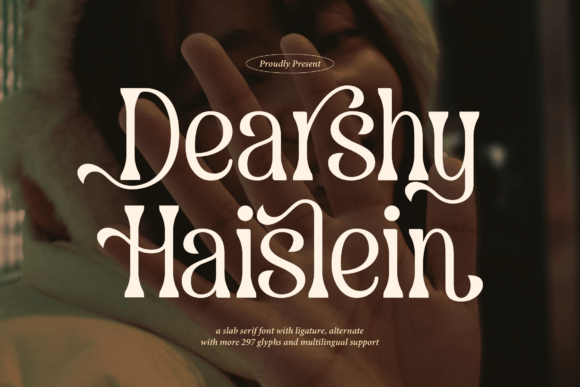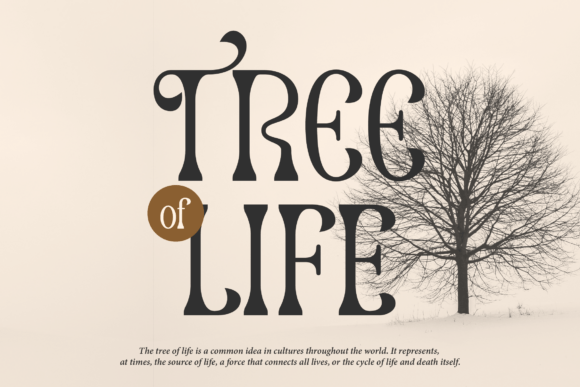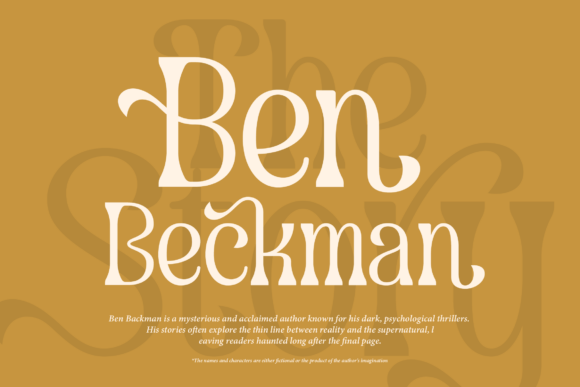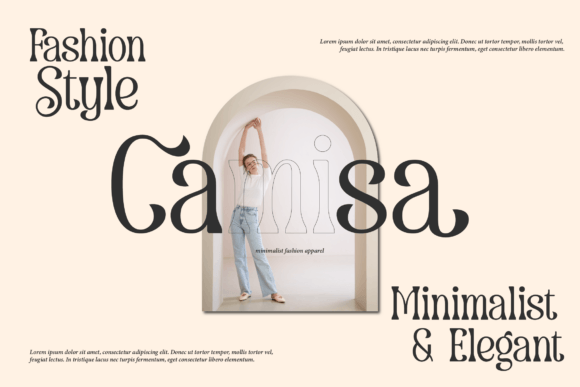
Dearshy Haislein Font
About the Dearshy Haislein Font
The Dearshy Haislein Font is here to transform your projects with its distinctive character and style. Dearshy Haislein is a stylish Slab Serif font with bold, thick letters and strong edges. Its classic design gives a confident and elegant look, making it great for headlines, logos, or any project that needs a bold yet refined touch.
Its strong verticality and bold strokes make Dearshy Haislein ideal for headlines, short impactful statements, and logos requiring a commanding presence. It also works well in branding applications where a sophisticated, yet assertive, feel is desired, such as for luxury goods or high-end services. Avoid using it for body copy or extended text; the thick strokes can strain readability in smaller sizes.
Consider pairing Dearshy Haislein with a clean sans-serif like Open Sans for body text to create a balanced contrast between headline and supporting text. For a more traditional feel, a delicate serif such as Lora would complement its strength. In designs needing a touch of playfulness, a rounded sans-serif like Montserrat could soften its boldness.
The overall personality of Dearshy Haislein is confident and elegant, yet powerful. It conveys authority and sophistication without being overly austere. Brands seeking to project prestige, reliability and a strong visual identity will find it particularly effective.
Dearshy Haislein Font Usage Examples
Dearshy Haislein Font Example